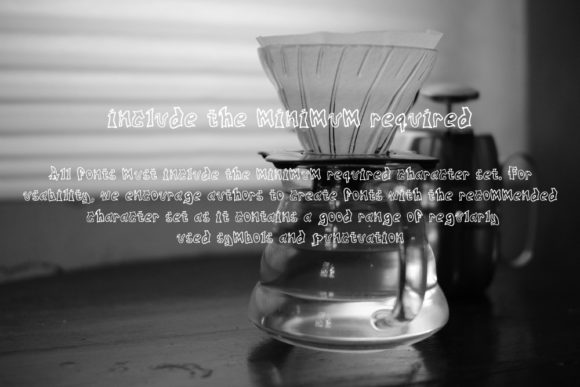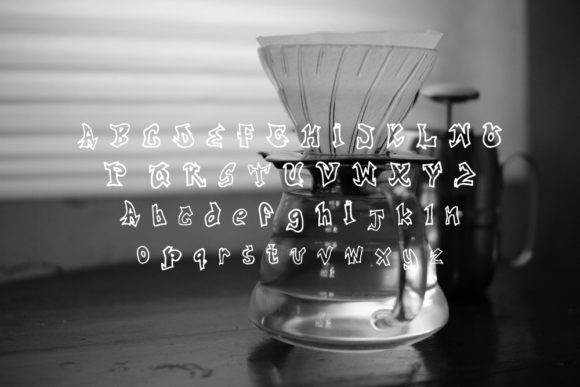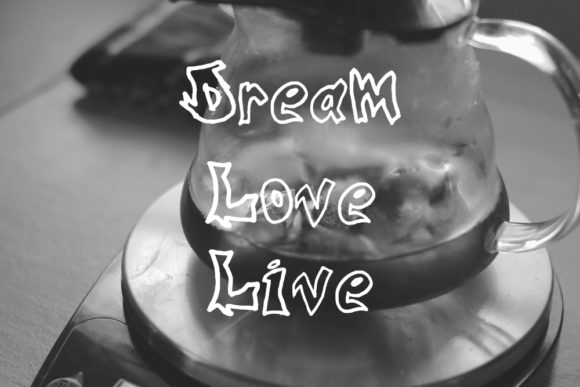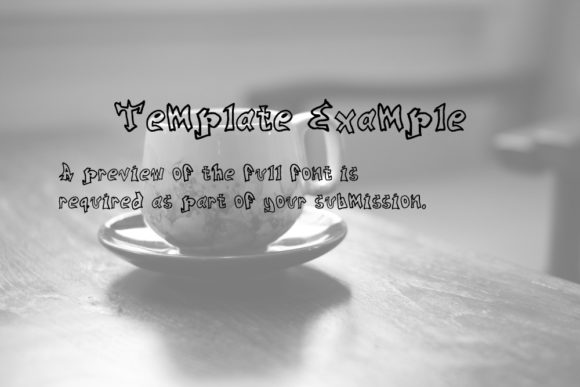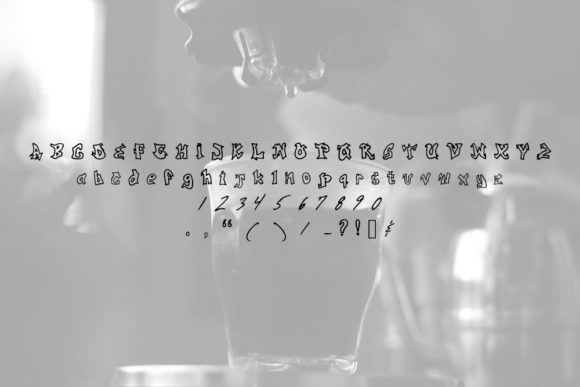
The Aenindo Font: A Brush Pen and Pencil Masterpiece
The Aenindo font results from a stunning pairing of a brush pen and pencil, making it look incredibly endearing and authentic. Its unique blend of organic and hand-drawn elements makes it perfect for DIY projects, crafts, and creative endeavors. In this article, we’ll explore the Aenindo font in-depth, including its features, how to use it, and some similar font alternatives.
An Honest Review of Aenindo Font
What I Love About Aenindo Font
• ✨ Unique and authentic handcrafted feel
• ✅ Perfect for DIY projects, crafts, and creative endeavors
• 💫 Works beautifully for display text, headings, and titles
• 🎨 Highly versatile and can be used for various design projects
While Aenindo is an amazing font, there are a few things to keep in mind:
• ⚠️ May not be suitable for body text or long-form content due to its decorative nature
• 🤔 Some characters may require manual kerning for optimal spacing
The Story Behind Aenindo Font
The Aenindo font was created by a talented designer who wanted to capture the essence of handcrafted art in a digital font. Inspired by the imperfections and uniqueness of brush pen and pencil work, Aenindo was born. The designer’s goal was to create a font that would bring a touch of authenticity and personality to any design project.
What is Aenindo font best used for? Aenindo font is best used for display text, headings, and titles in DIY projects, crafts, and creative endeavors.
Is Aenindo font suitable for body text? No, Aenindo font is not suitable for body text due to its decorative nature.
Does Aenindo font support OpenType features? Yes, Aenindo font supports OpenType features, including glyphs and stylistic alternates.